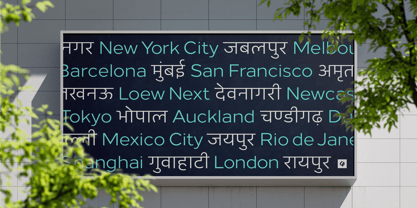
Loew Next Devanagari
by The Northern Block
Loew Next Devanagari is an extension of the Loew Next typeface, designed to incorporate the Devanagari script used in languages like Hindi, Marathi, and Sanskrit. It adapts the geometric precision and modernity of Loew Next to accommodate the intricate forms of Devanagari, ensuring a cohesive and stylish integration with the original Latin characters.
This version maintains high readability and visual consistency across both scripts, making it versatile for various applications. Loew Next Devanagari combines the clarity and functional design of the original typeface with the specific needs of multi-script text, broadening its usability for a global audience.
Designers: Jonathan Hill, Amélie Bonet
Foundry: The Northern Block